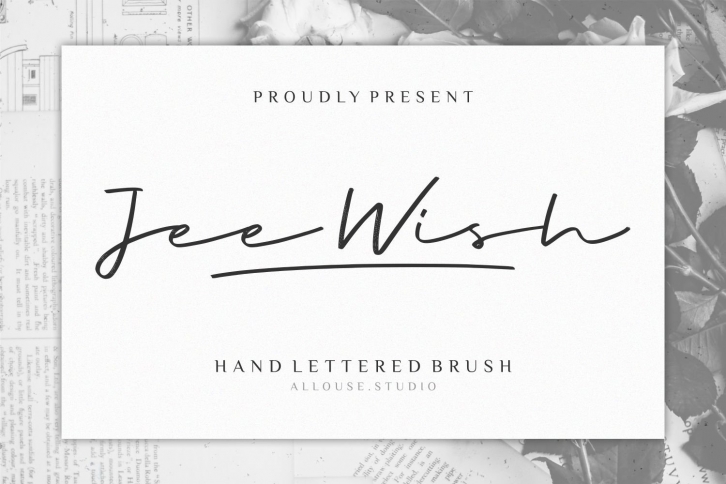
Web is a beautiful font that was designed by Allouse Studio. It's a great choice for designers and creatives who need such a font. It was released on December 8, 2020 and the file size is 14.56 MB. Web may give a more youthful, expressive and casual look to your project. It is a very beautiful, refined, elegant, and high-quality font.